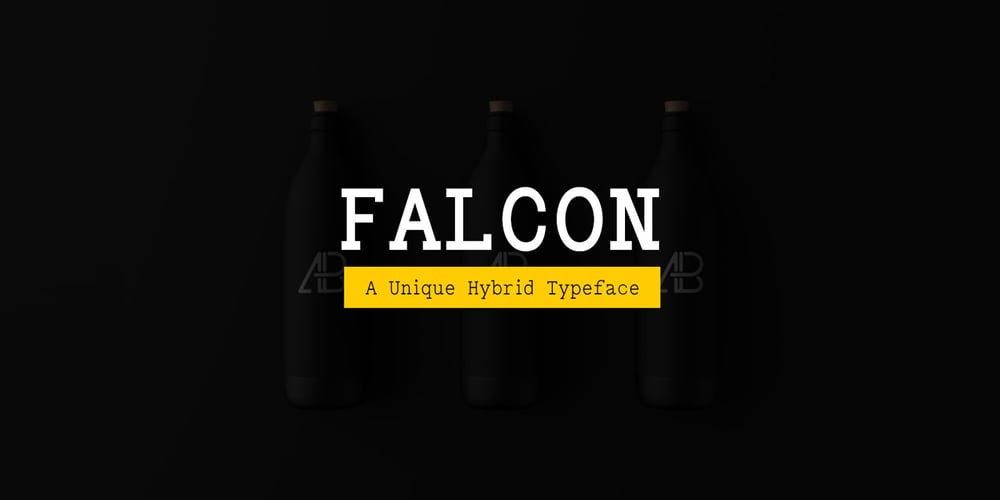
Falcon Nuvo Font Family was designed by Jean Johnson and published by Designova. Falcon Nuvo contains 8 styles and family package options. FALCON is a hybrid typeface with a unique identity and character of its own. Inspired by some of the popular Mechanistic typefaces, FALCON is best suited for catchy headlines, branding identities, logotypes and normal Slab-Serif genre of text presentation.Simply check the demo images shown above to get a nice idea about the look & feel of this typeface when used for branding and log design purposes.